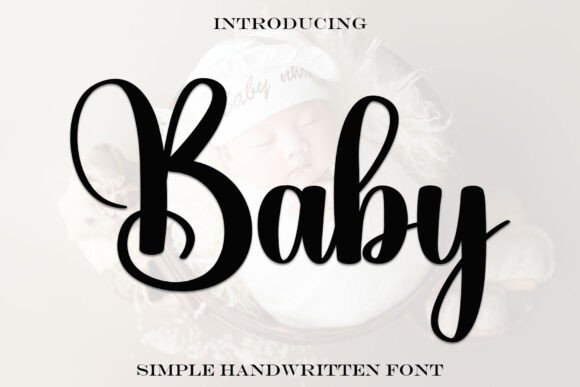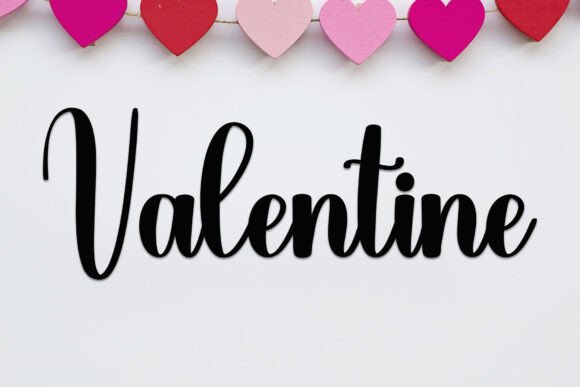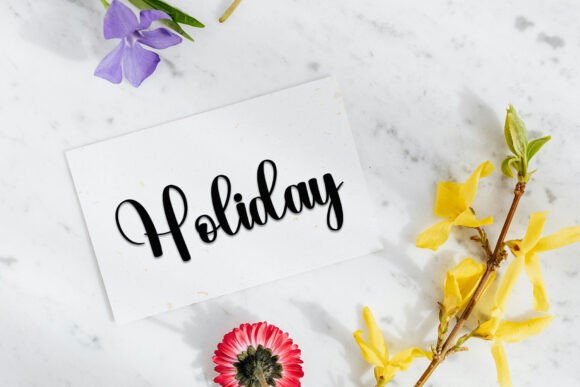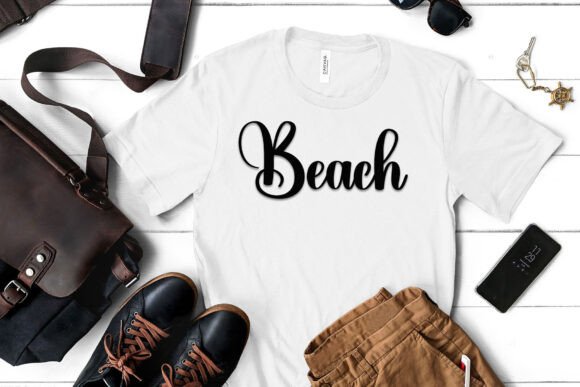
About the Baby Font
Discover the charm of Baby Font. This font is a perfect blend of modern aesthetics and classic appeal. Baby is a sweet and cursive handwritten font. This gentle font will look gorgeous on a variety of design ideas. It will add a joyful and romantic touch to each of your projects! Perfectly fit for branding, logo, wedding things, greeting cards, fashion, lookbook, marketing promotion, and any time you want your design to look fancy and elegant but still casual.